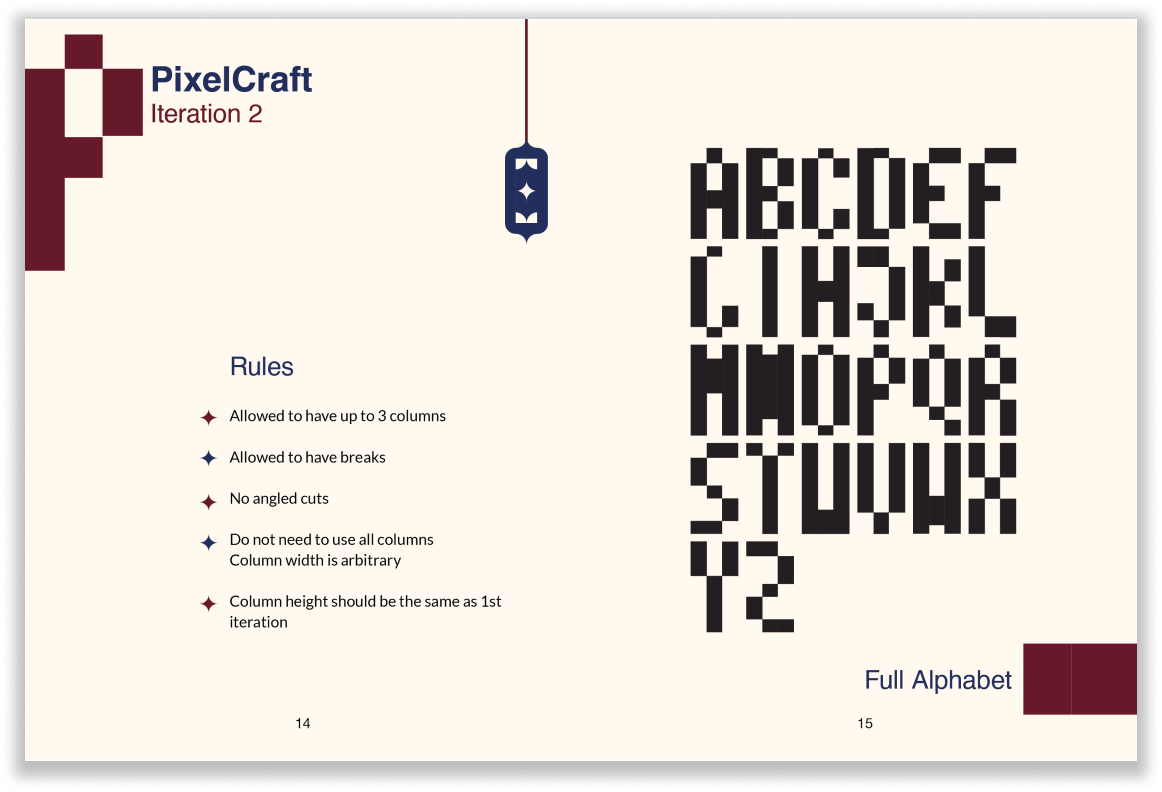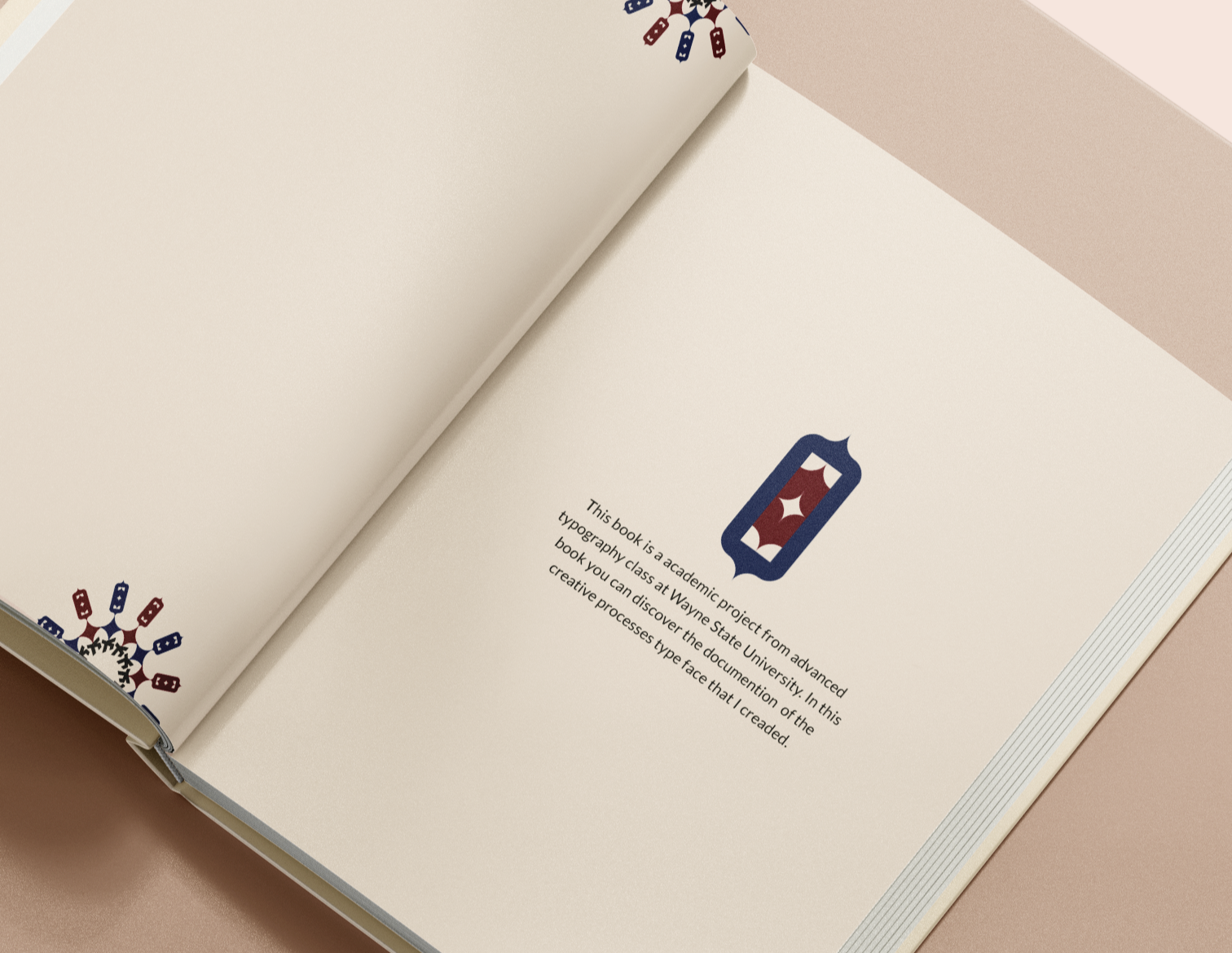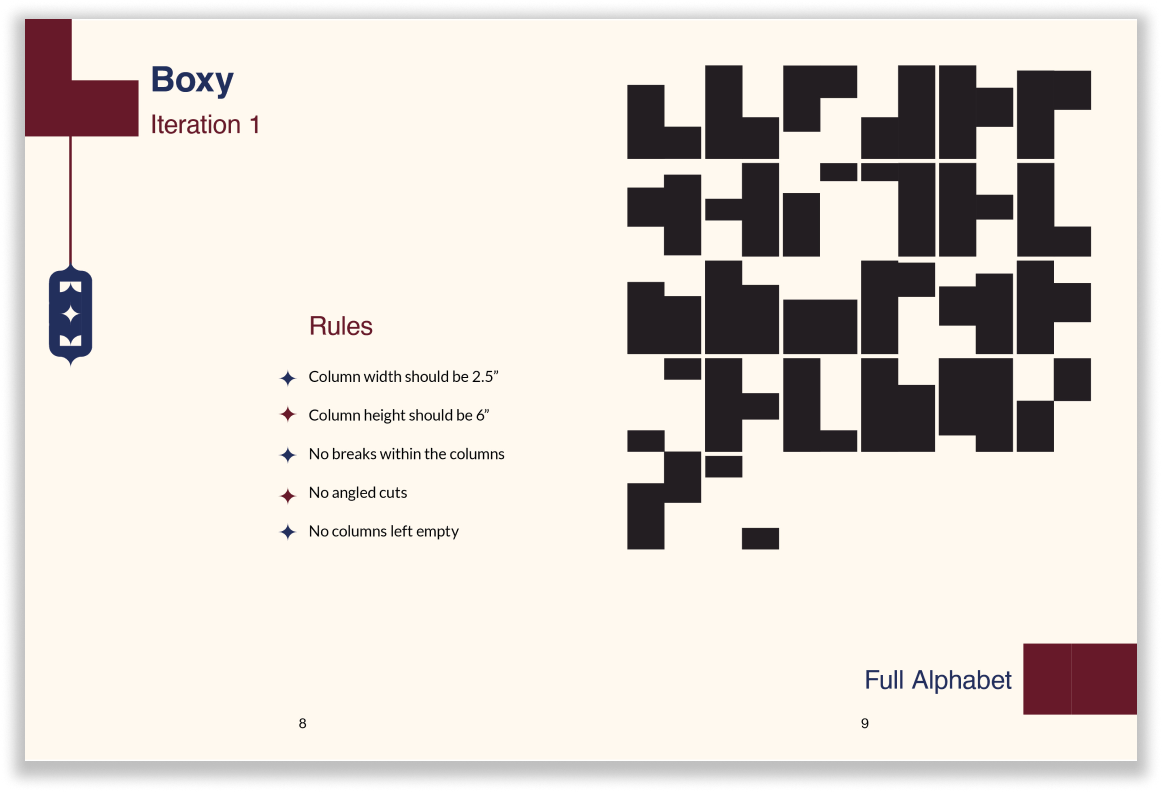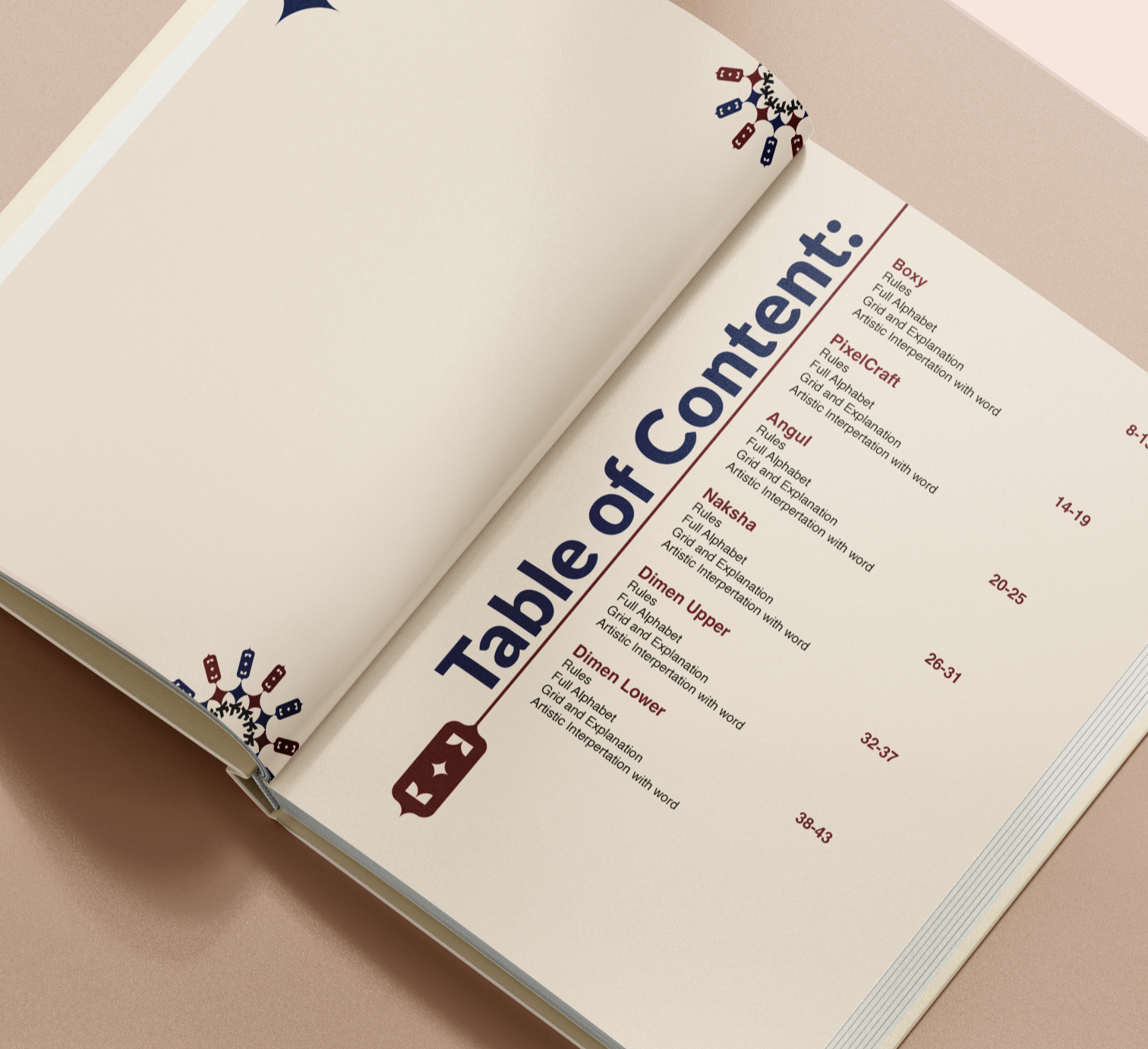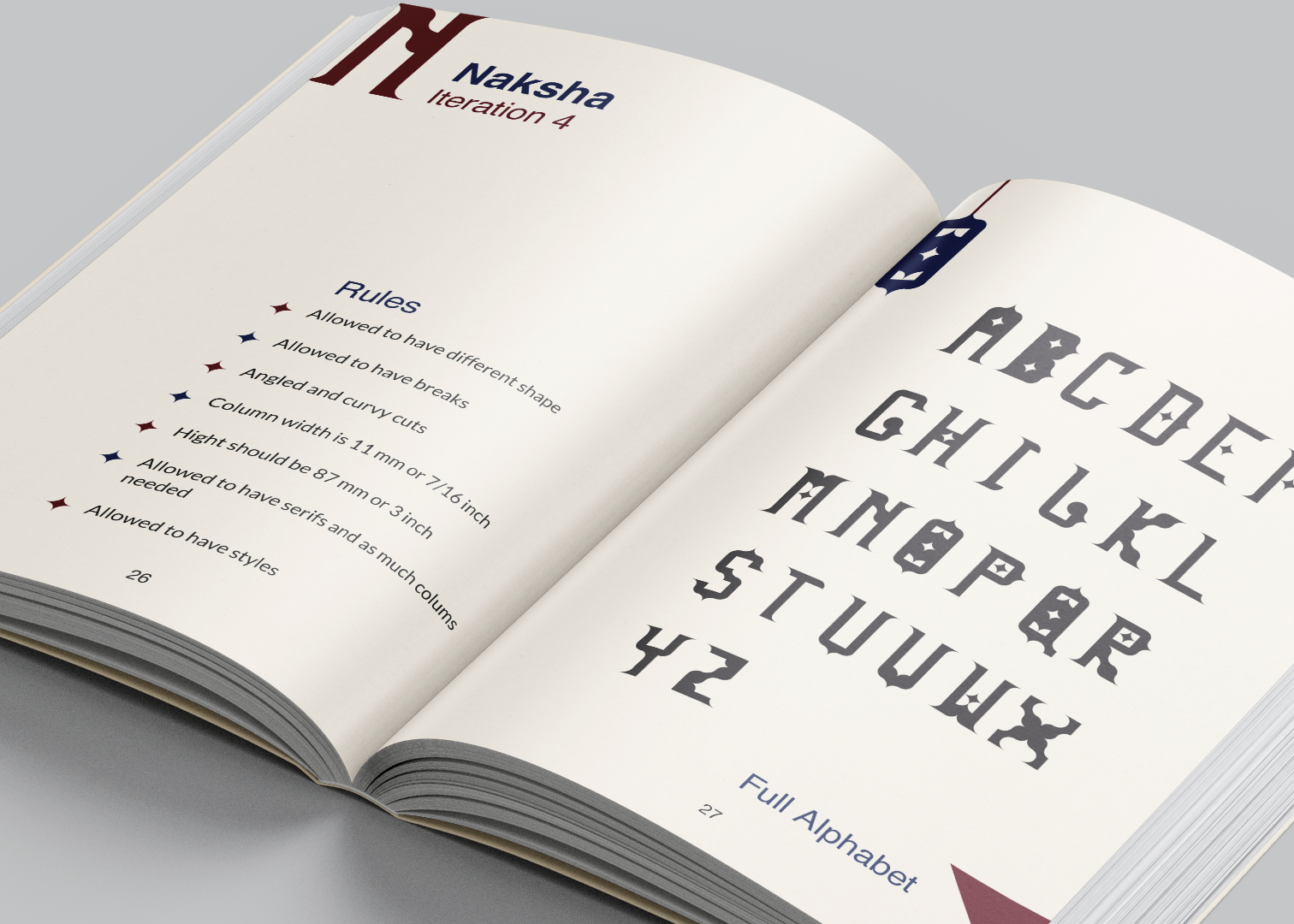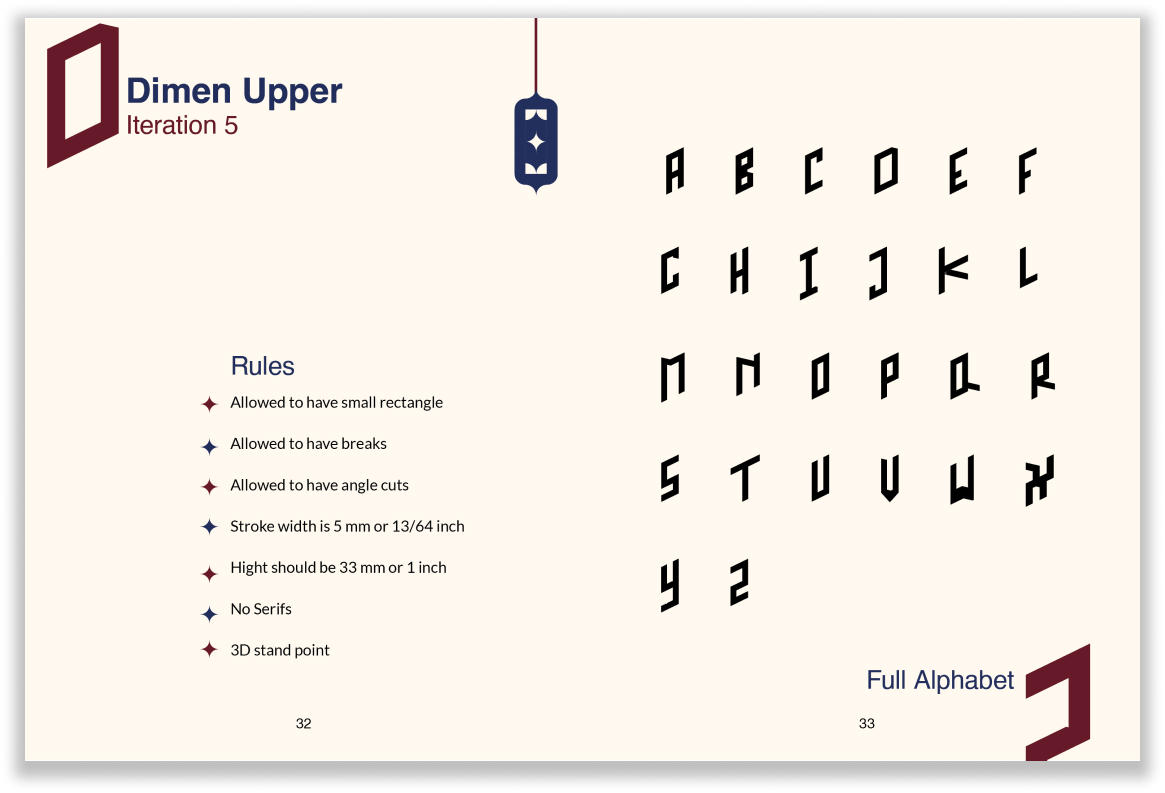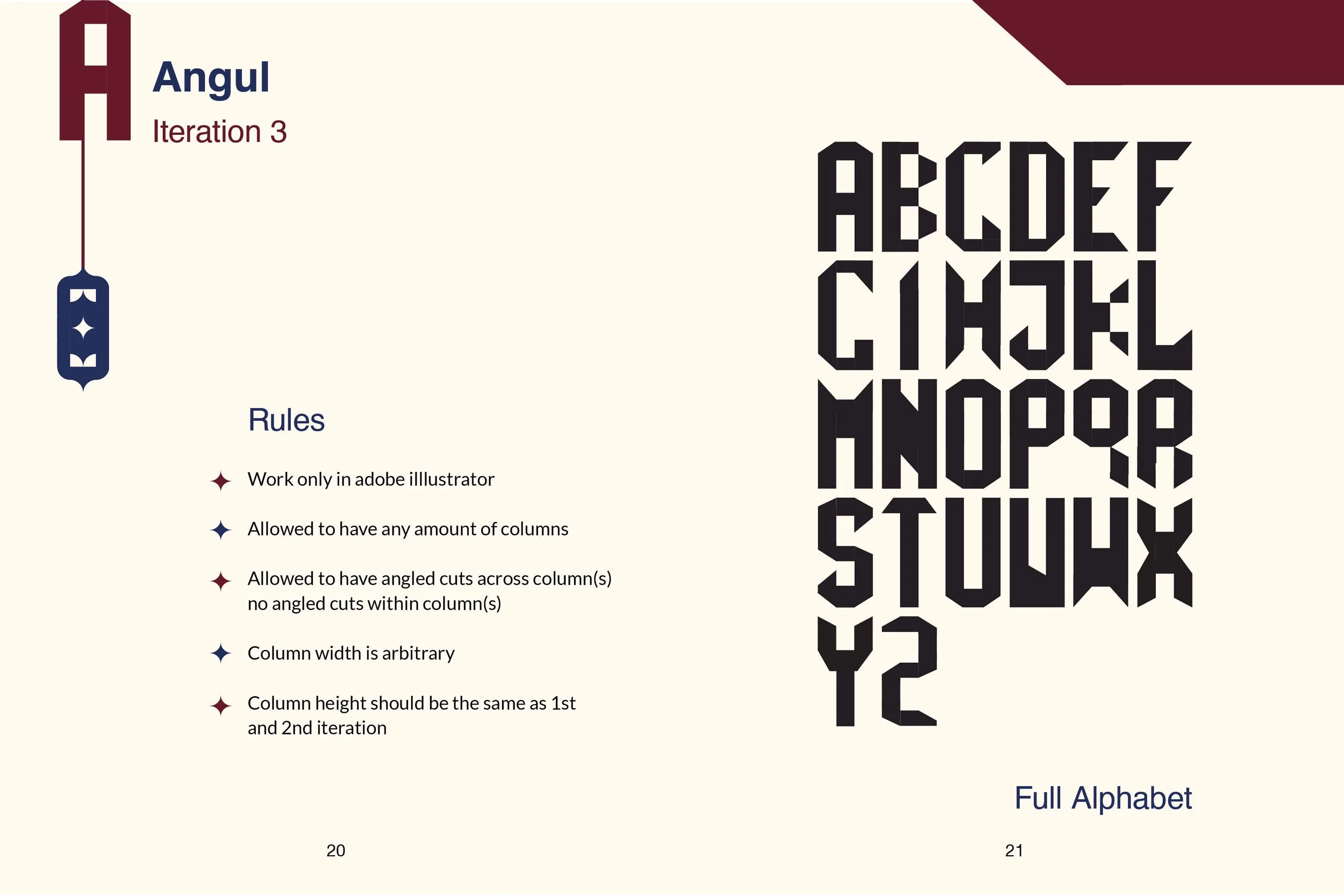
The Art of Typeface
This book documents the creative process of designing six distinct typefaces. Each iteration represents a different approach to typographic design, exploring form, structure, and the use of grid systems. The book reflects a comprehensive study of type design, focusing on both creative experimentation and the establishment of clear rules for each typeface.
Boxy
Pixel Craft
TYPEFACES USED WITHIN THIS BOOK
Angul
Naksha
Dimen Upper
Dimen Lower
Each typeface includes the following components:
Design Rules: Guidelines for creating each typeface.
Full Alphabet: The complete set of characters designed for each typeface.
Grid Explanation: The grid structure used to maintain consistency in design.
Artistic Interpretation: A creative word representation to visually showcase the typeface's character.
BOXY
Concept: Basic typeface creation warm-up using a two-column grid.
Artistic Interpretation: Expresses "Life is Short, Smile while you still have teeth," reflecting the typeface's straightforward nature.
Concept: Inspired by blocky or pixelated typefaces, reminiscent of Minecraft.
Outcomes: The increased flexibility of three columns allowed for more recognizable letterforms, making it easier to create familiar shapes within the grid structure.
PIXELCRAFT
Concept: Incorporating angled cuts to add complexity and dynamism to the letterforms.
Outcomes: The introduction of angles created more dynamic and interesting letters, marking a significant evolution in design complexity.
ANGUL
Concept: A decorative typeface with art deco influences, incorporating serifs and curvy cuts.
Outcomes: The typeface achieved a decorative aesthetic, emphasizing both form and detail.
NAKSHA
Concept: A 3D-styled typeface with isometric grid influences, evoking a futuristic feel.
Outcomes: The typeface effectively mimicked a 3D appearance without using actual 3D shapes, focusing on a futuristic aesthetic.
DIMEN UPPER
Concept: A lowercase version of Dimen Upper, adhering to similar design principles but including a median line to establish lowercase proportions.
Outcomes: This typeface maintained the 3D illusion while adapting the uppercase design into a more compact, lowercase form.